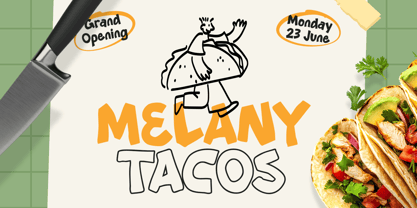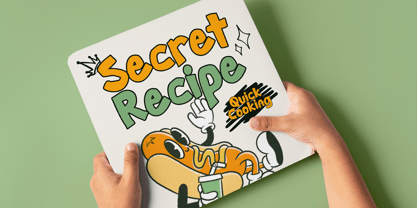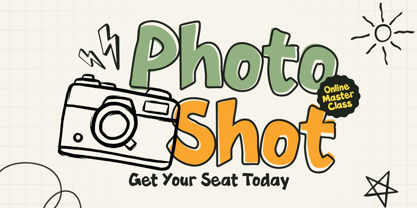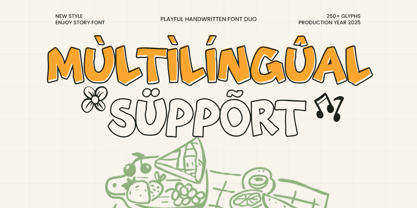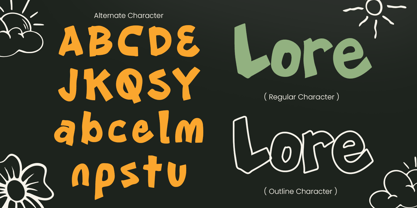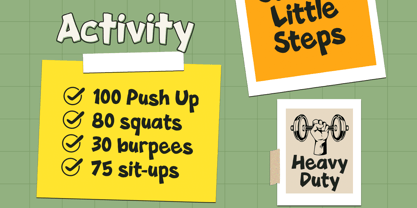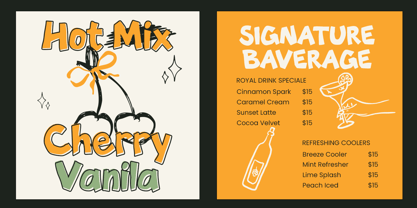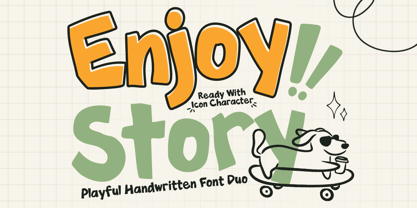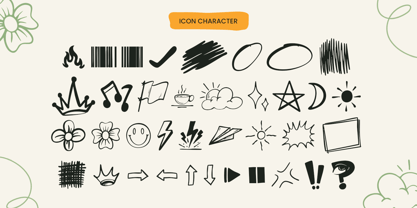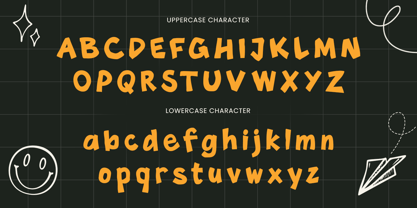
ENJOY STORY is a playful handwritten font duo created to bring warmth, fun, and personality into your designs. Combining a lively handwritten script with a matching companion style, this duo makes it easy to build expressive typography with natural charm and a cohesive look.
Perfect for kids branding, lifestyle visuals, and cheerful creative projects, ENJOY STORY shines across logos, product packaging, stickers, greeting cards, planners, invitations, and social media graphics. The organic strokes and casual rhythm add an approachable feel that instantly makes designs look more human and engaging.
From playful headlines to cute quote layouts, this handwritten duo helps you create balanced type pairings without extra work—ideal for designers who want quick, polished results for both print and digital.
ENJOY STORY – Playful Handwritten Duo Features
Handwritten font duo for effortless pairing
Playful, friendly letterforms with natural character
Great for kids branding, crafts, and cheerful packaging
Ideal for quotes, greeting cards, planners, and journals
Includes uppercase, lowercase, numerals, and punctuation
OpenType features for smooth creative styling
Works beautifully for social media, posters, and print projects
Multilingual Support
Make every design feel brighter with ENJOY STORY – a playful handwritten font duo made to share happy vibes. 🌈
Enjoy Story